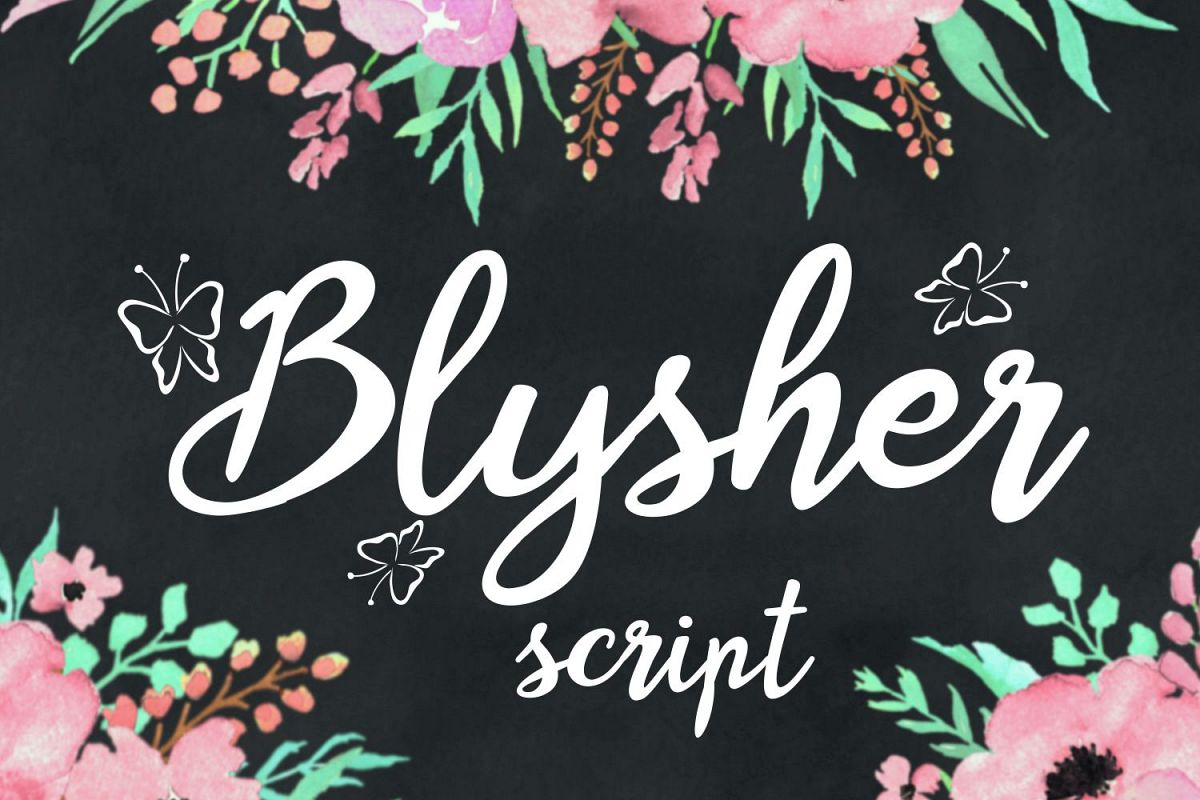
Blysher
Blysher is a handwritten font with butterfly decorated capital letters.
Great choice for projects made with monograms, and text looks pretty with the delicate butterflies.
Type "[" and "]" to get extra butterflies between letters.  Se example B]lyshe[r
By Digital Typeface Studio